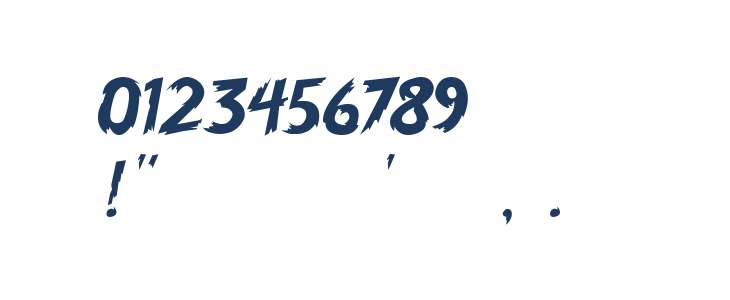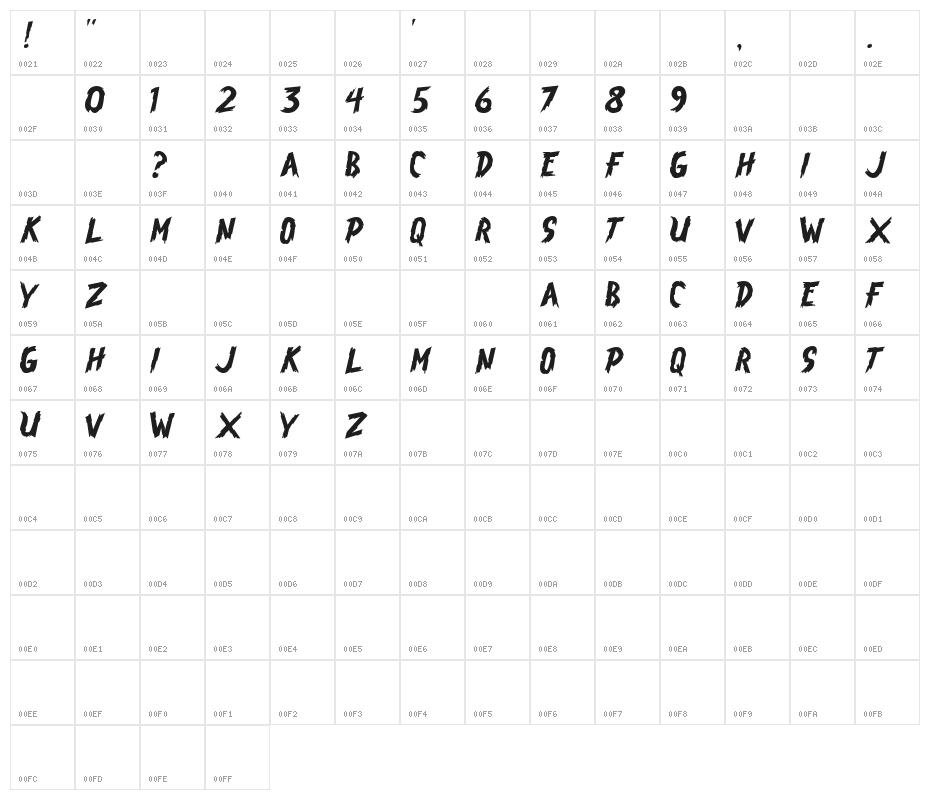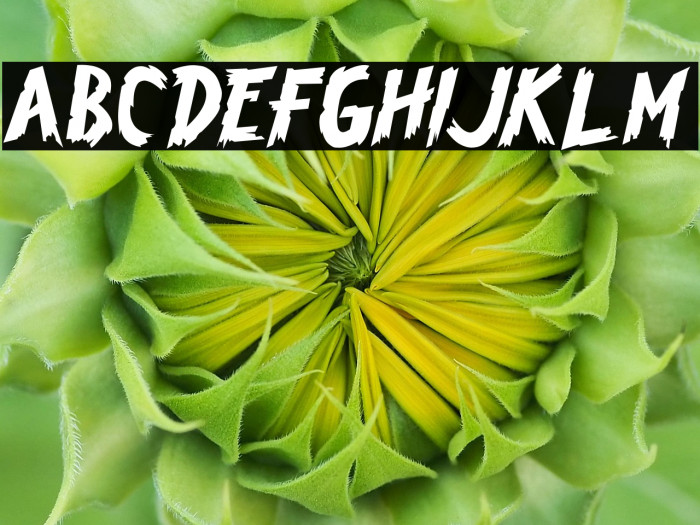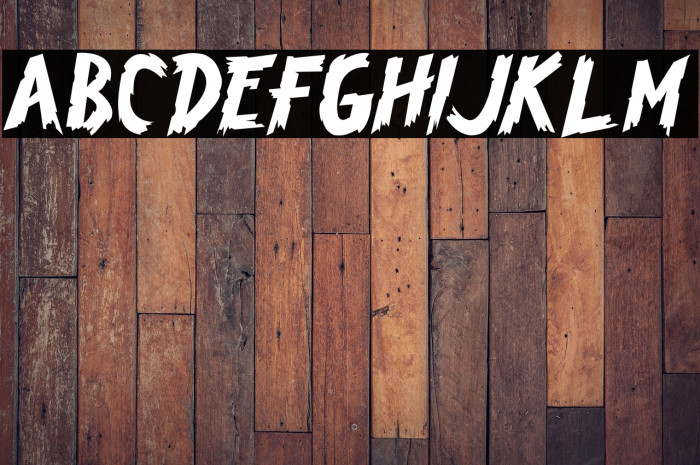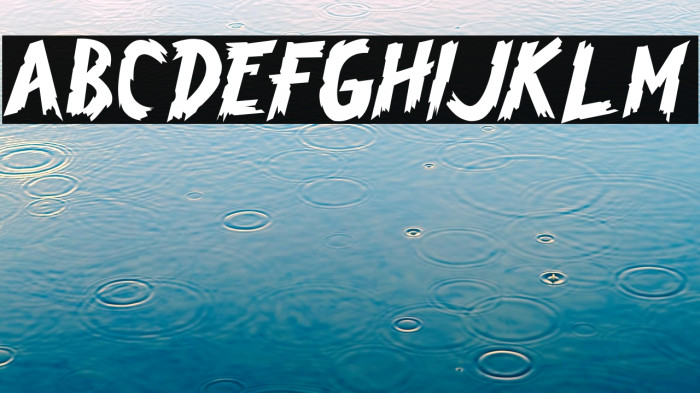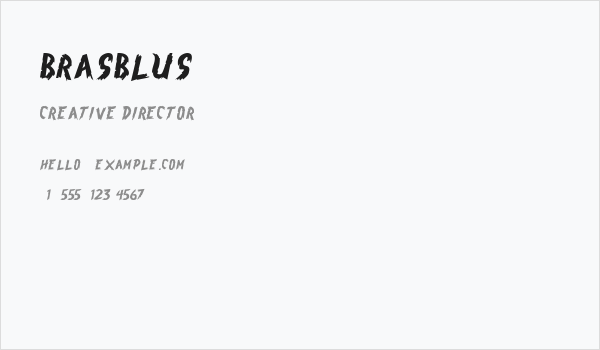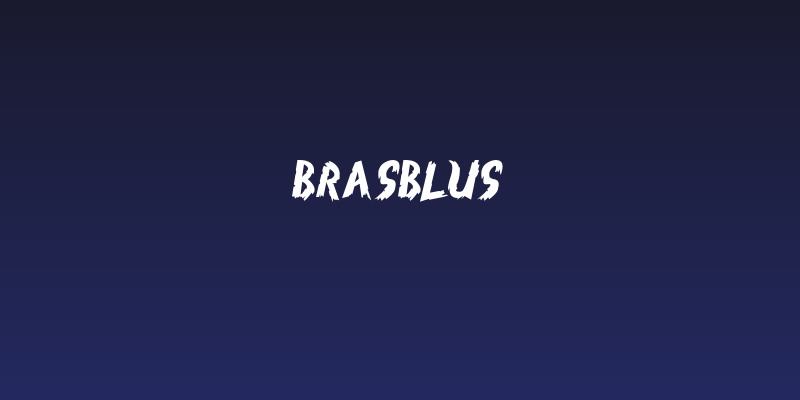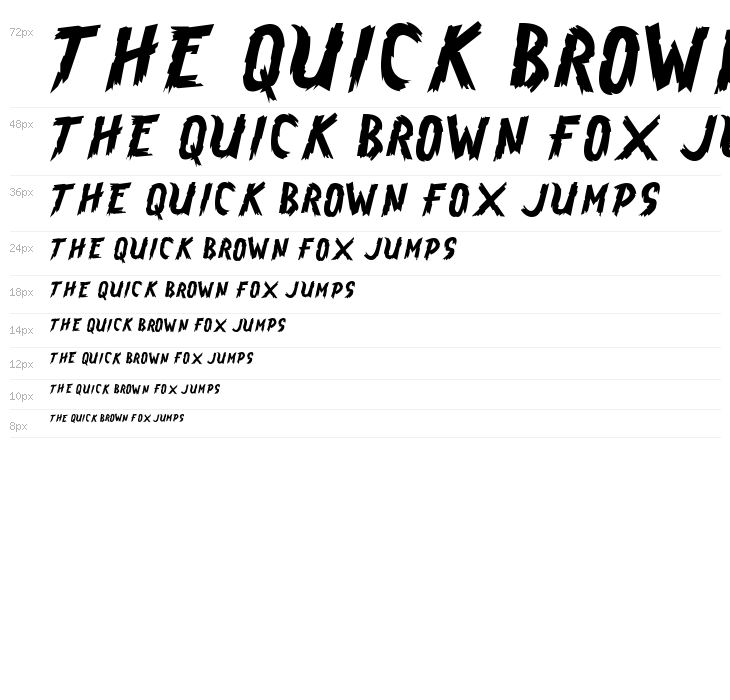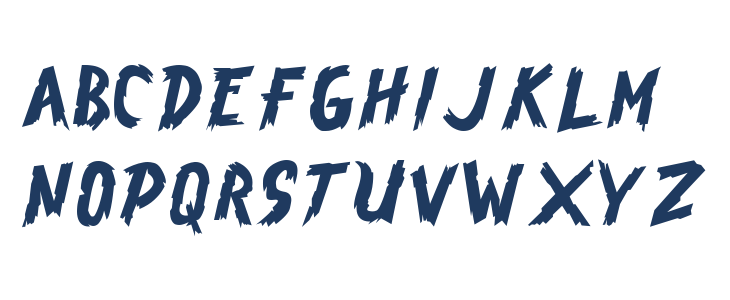
Brasblus Font
Brasblus Description
This font features a bold and dynamic style with jagged, brush-like strokes that give it a sense of movement and energy. The characters are sharply angled and irregular, creating a sense of urgency and intensity. The uppercase and lowercase letters maintain a consistent style, with exaggerated serifs and pointed edges. The numbers and special characters follow the same design principles, ensuring a cohesive look across all elements. This font is ideal for projects that require a dramatic and eye-catching appearance.
Proposed ProjectsPerfect for horror movie posters, edgy album covers, or extreme sports branding.